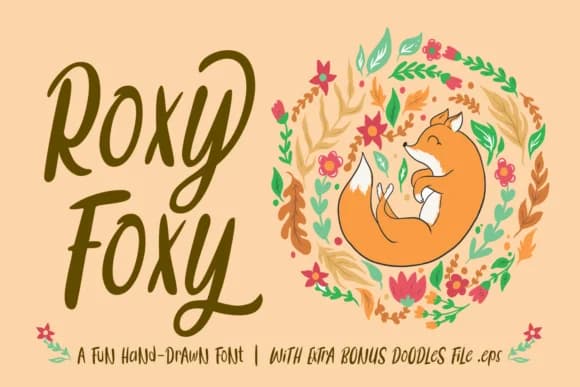
1 / 6About Roxy Foxy Font
Roxy Foxy by Dreamink is a handwritten script loaded with expressive swashes that feel genuinely personal and alive on the page. The letters were drawn entirely by hand, showing unmistakably in every stroke and curve. That kind of authenticity gives you both strong visual interest and real character without sacrificing readability, whether you're using it at headline sizes or much smaller scales. There's no templated, mass-produced feel here, just honest craftsmanship that makes people actually stop and look closely at what you've designed.
This font shines brilliantly for wedding invitation suites, save-the-date cards, and personalized event stationery where real human touch truly matters. Product labels for small-batch skincare lines, artisan goods, and handmade craft supplies sit naturally in this script's territory. Social media graphics for beauty and lifestyle brands light up instantly with its flowing letterforms and generous swash details that catch the eye. You can also reach for it when designing boutique packaging, custom gift tags, vintage letterpress greeting cards, or anything that needs genuine handcrafted warmth without looking forced or over-produced.
Roxy Foxy Font is a script font that shines as a display or heading face. Pair it with a clean sans-serif or serif font for body text β the contrast creates a clear hierarchy while the two styles stay balanced and easy to read.